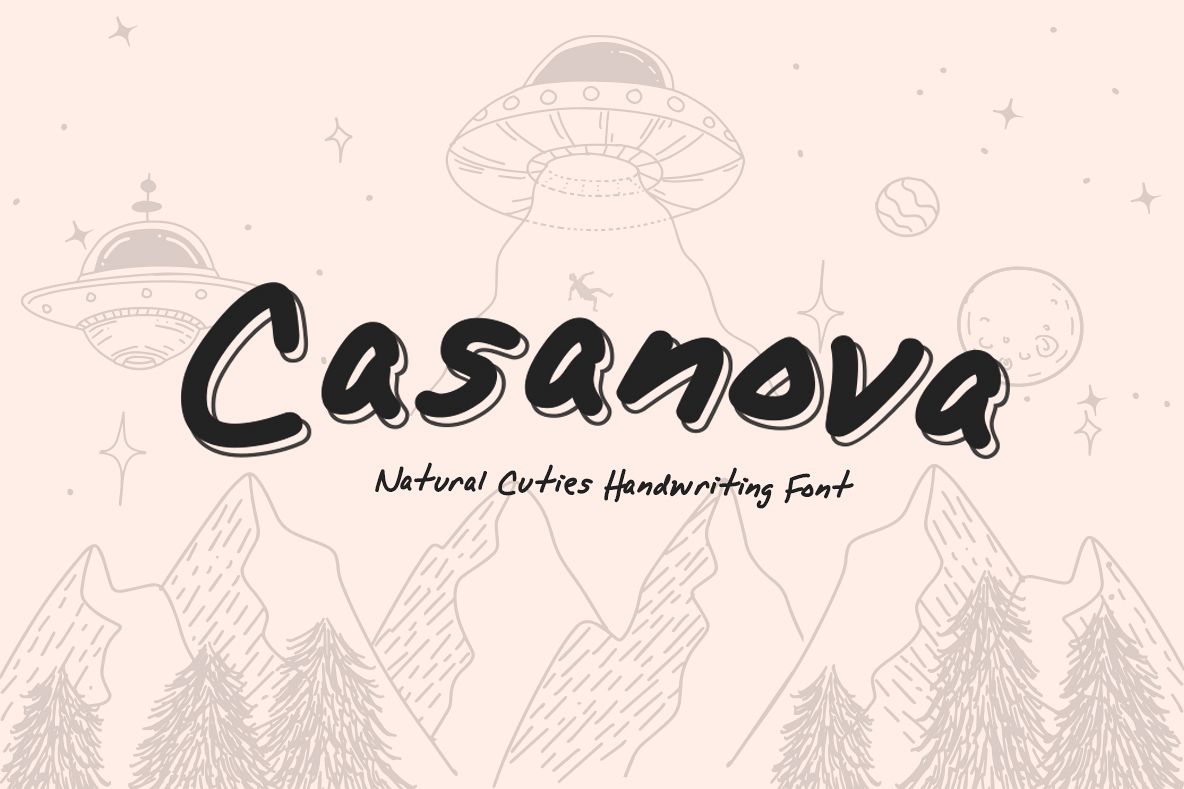
Casanova
Casanova is a natural beautiful handwritten font, that is perfect for the informal, messy design. I love this font for invitations, logo design, quotes, and content creation (helloooooo Instagram!). simple handwritten font. OTF, TTF & web font files included. available on regular and outline.